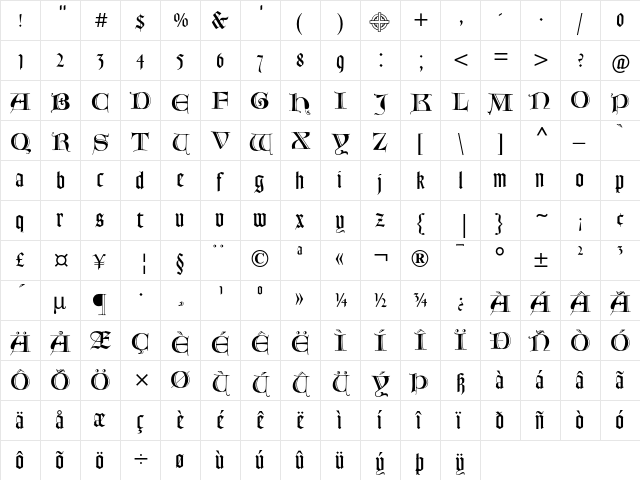
Goudy Text MT Lombardic Capitals
Design Context for Goudy Text MT Typeface
Goudy Text MT takes a measured approach to typography — its balanced proportions and neutral character make it a reliable workhorse for both digital and print work.